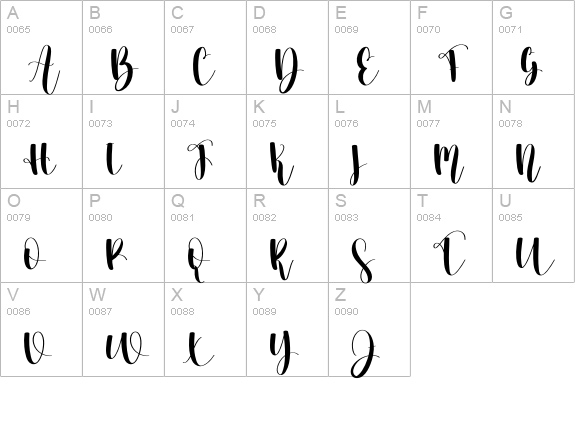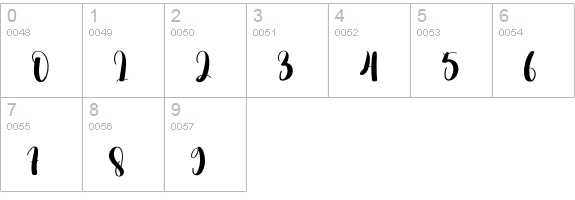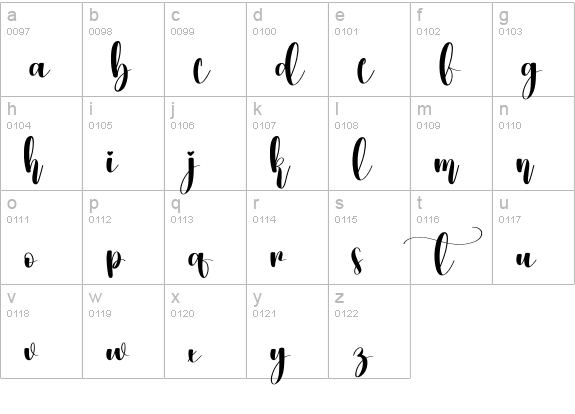
Hello School is a free for personal use font in the Script > Handwritten category, designed by scratchones. It has been downloaded 4 times and is available for Windows, Mac and Linux.
Introducing Hello School font - a charming and playful typeface perfect for any school-related projects or designs. This fun and whimsical font is sure to bring a touch of youthful energy to your work. With its friendly and inviting appearance, Hello School is ideal for a variety of applications, from educational materials to children's books and beyond.